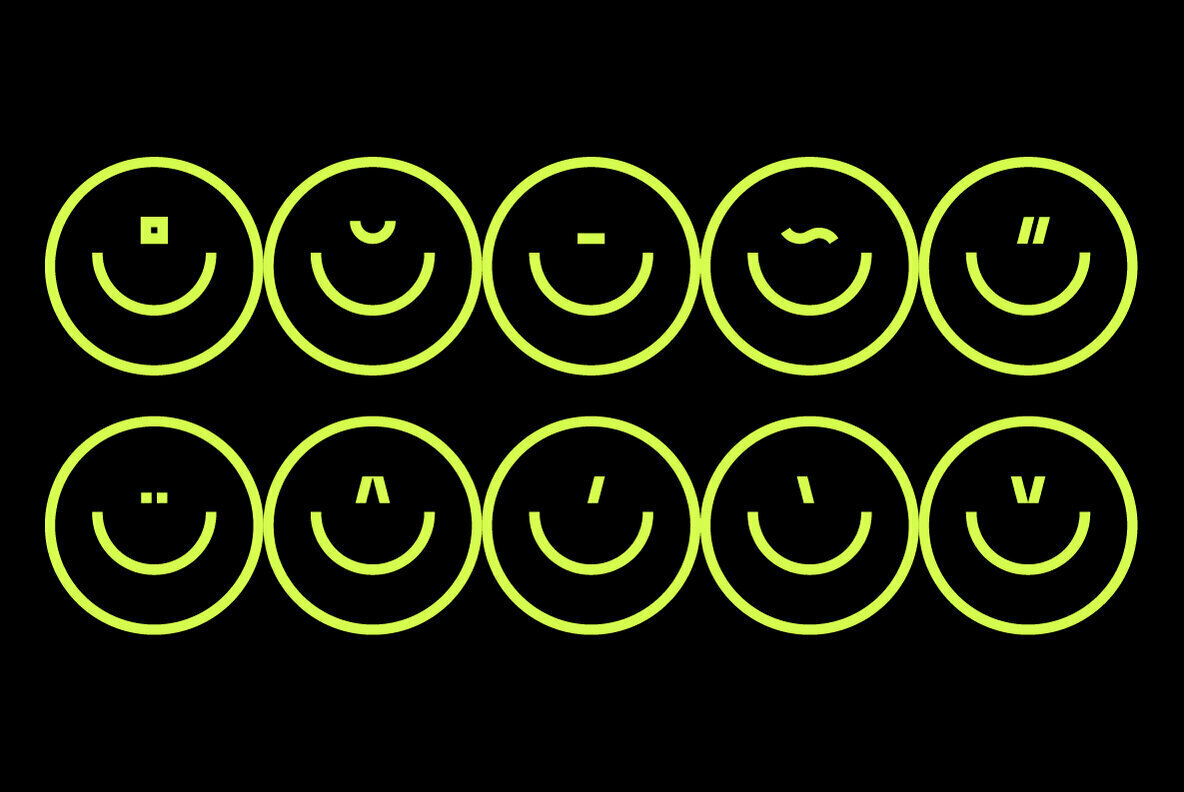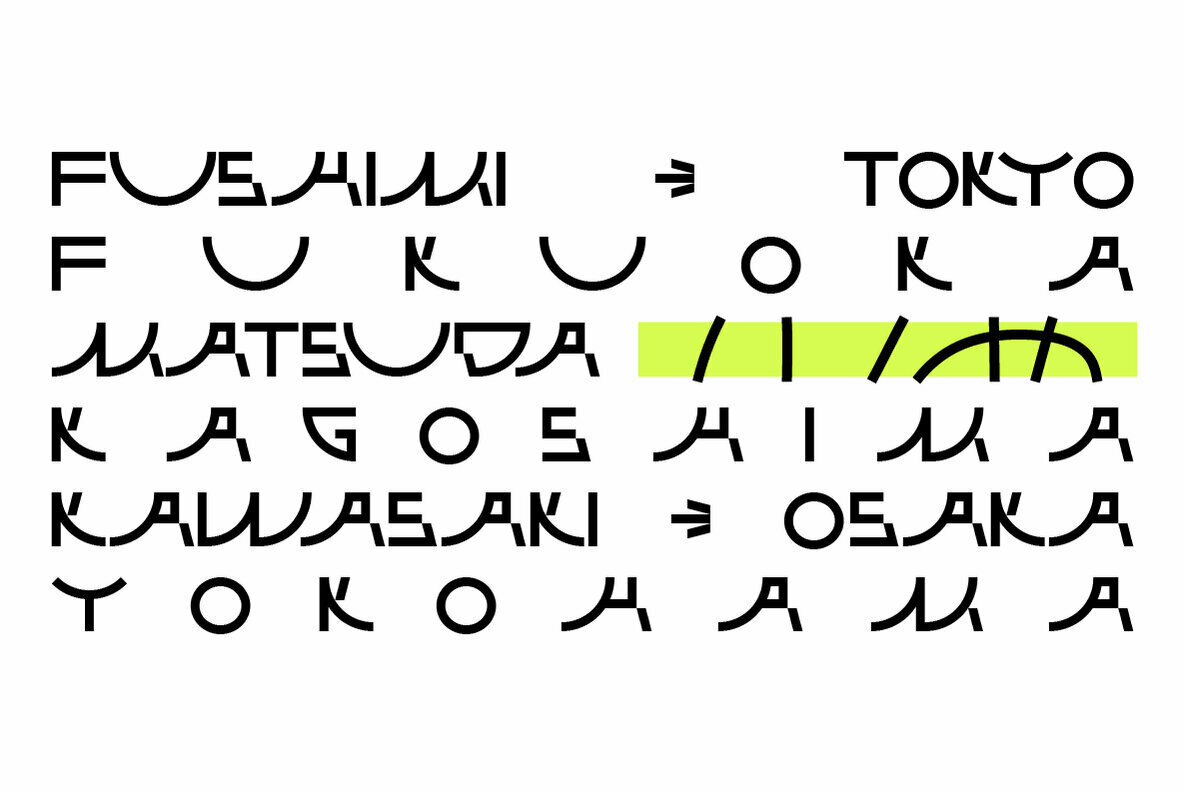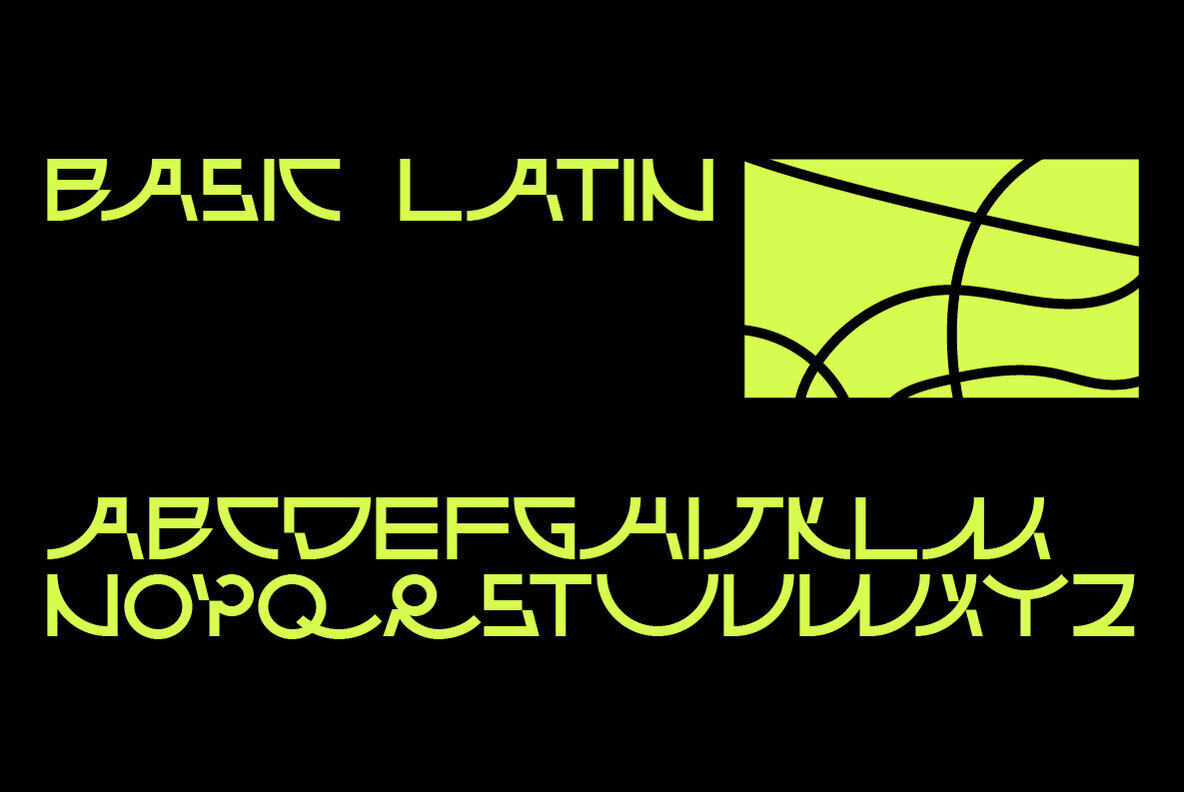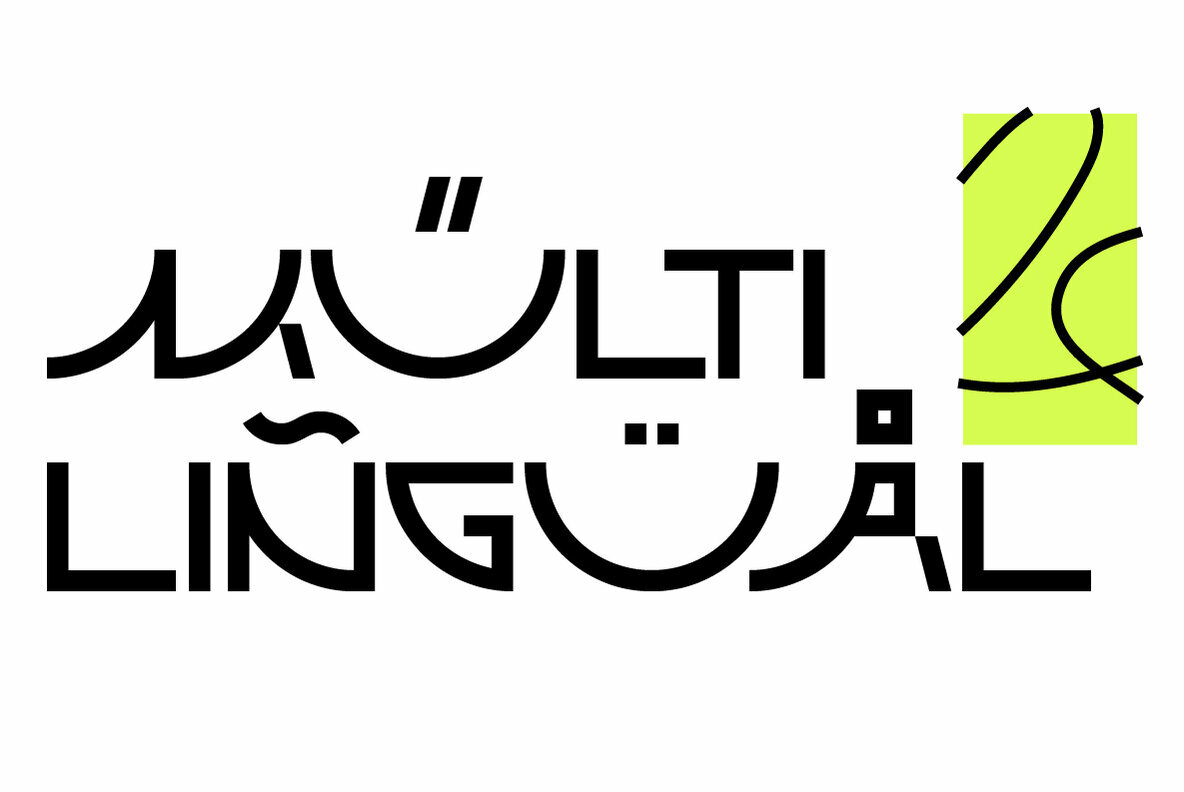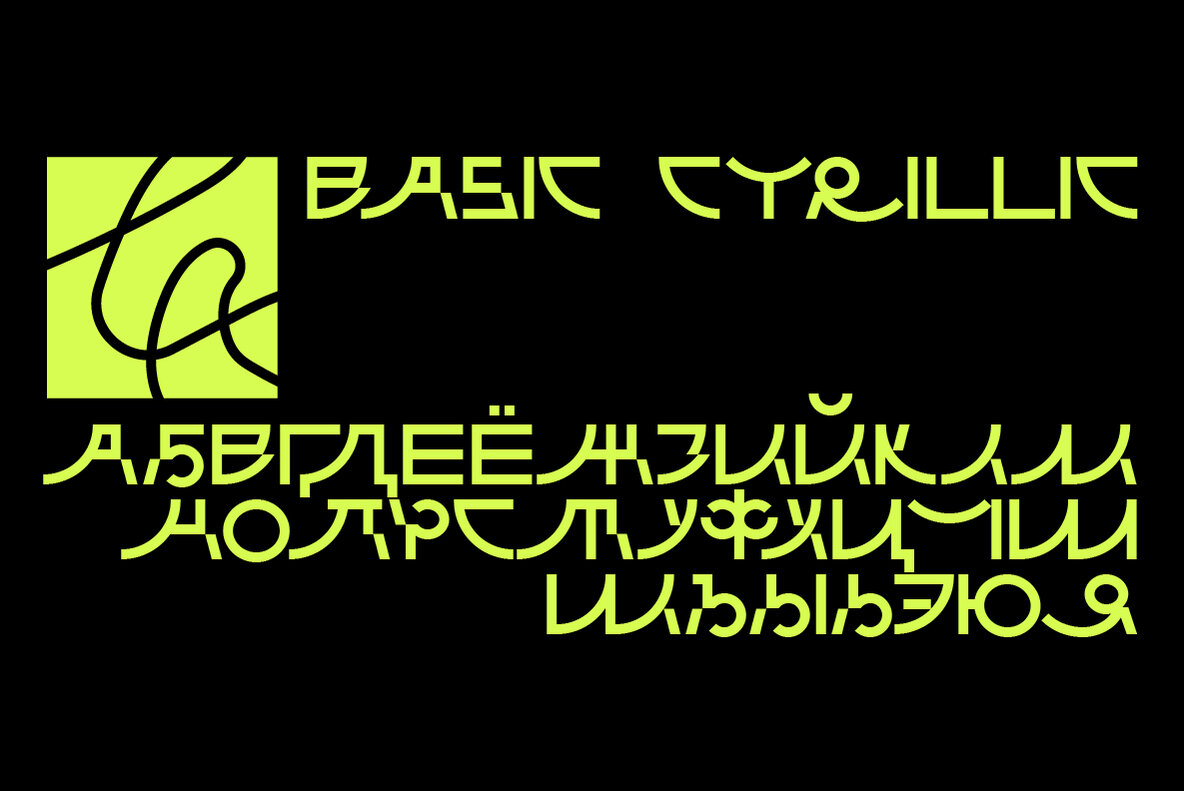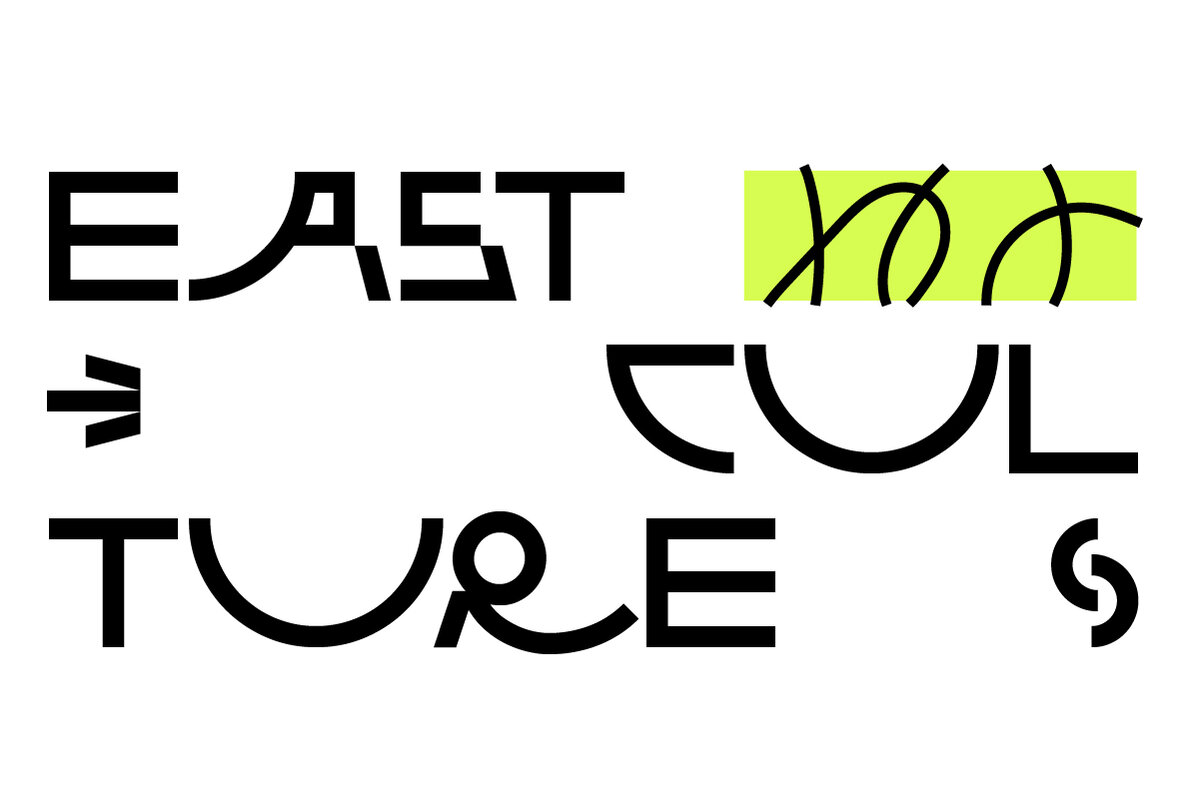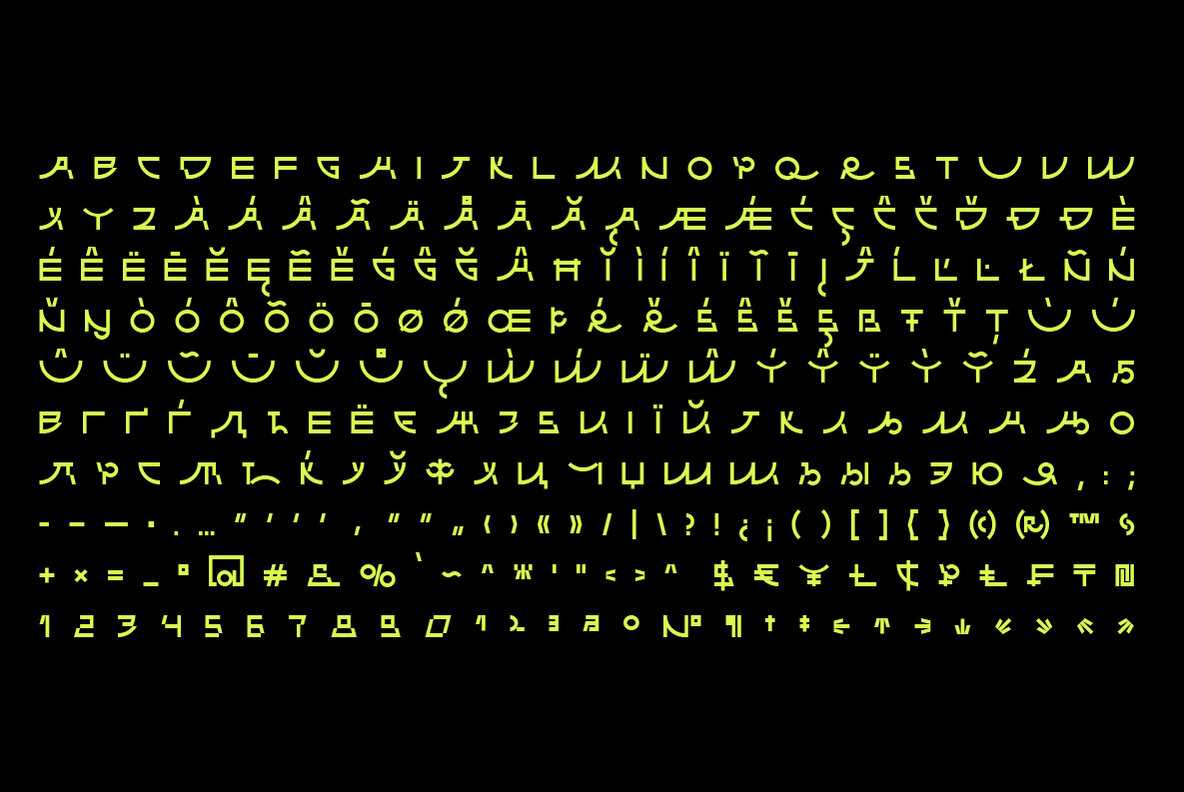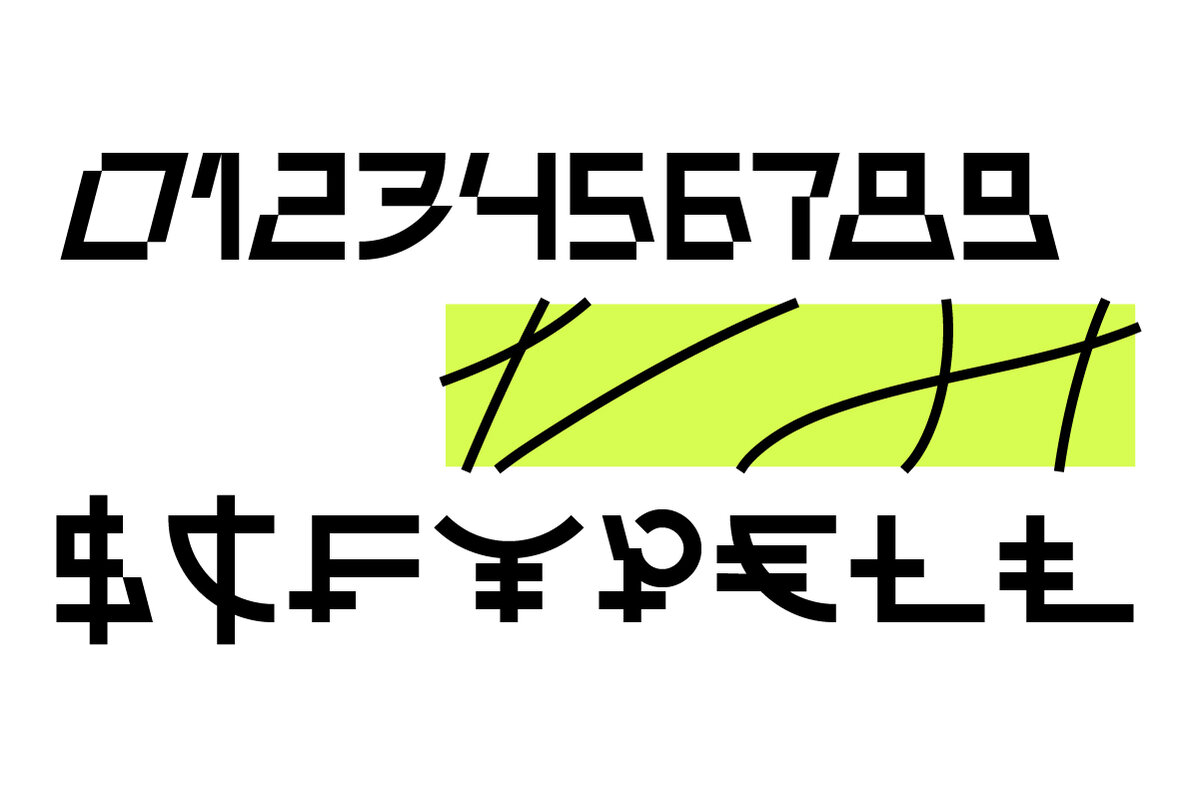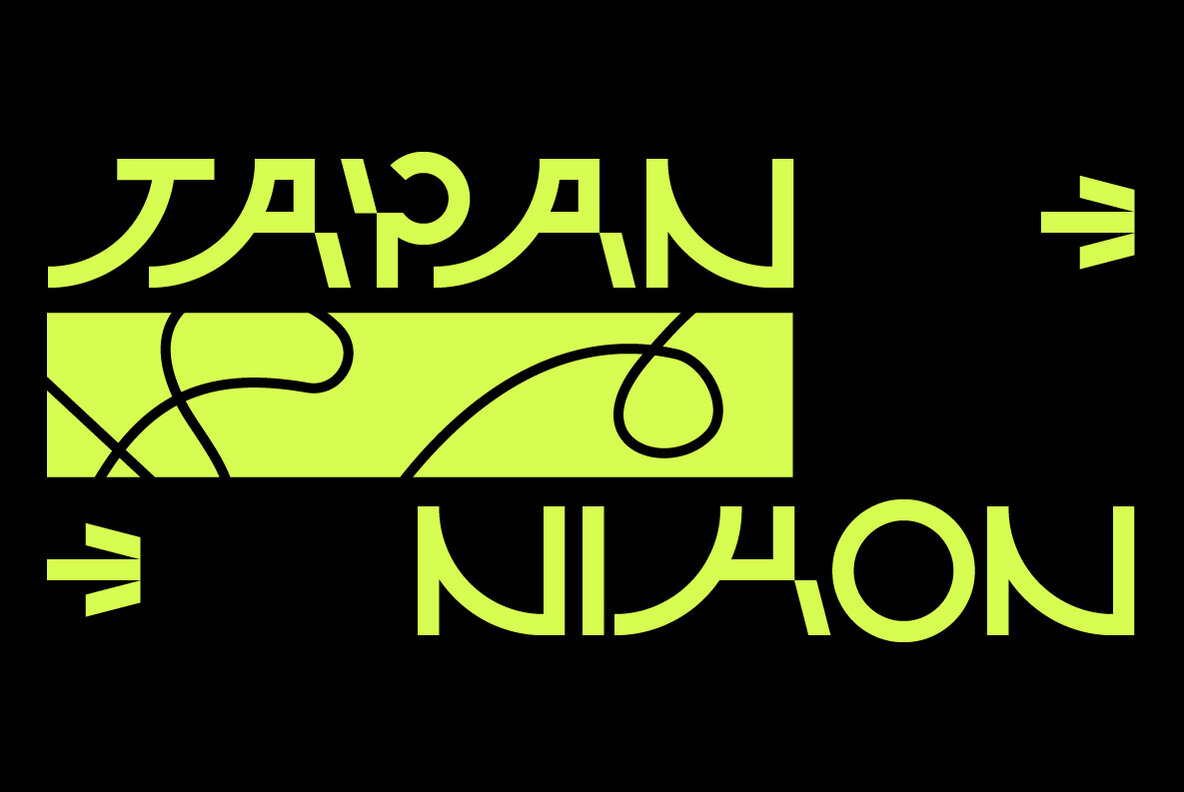
SK Fushimi Font
SK Fushimi Regular
SK Fushimi is an accidental experimental font inspired by modern Japanese culture and aesthetics. Its futuristic geometric shapes, on the one hand, follow the spirit of the time of the land of the rising sun, and on the other hand, they make homage to technology. Like Japanese culture, the SK Fushimi font plastic fits perfectly into many areas of graphic design, supporting and complementing any graphic solutions. In addition, this font supports a multilingual set of more than fifty characters, including Cyrillic and Latin alphabets. Unusual in all respects, the font is perfect for the same unusual design or will make it so!